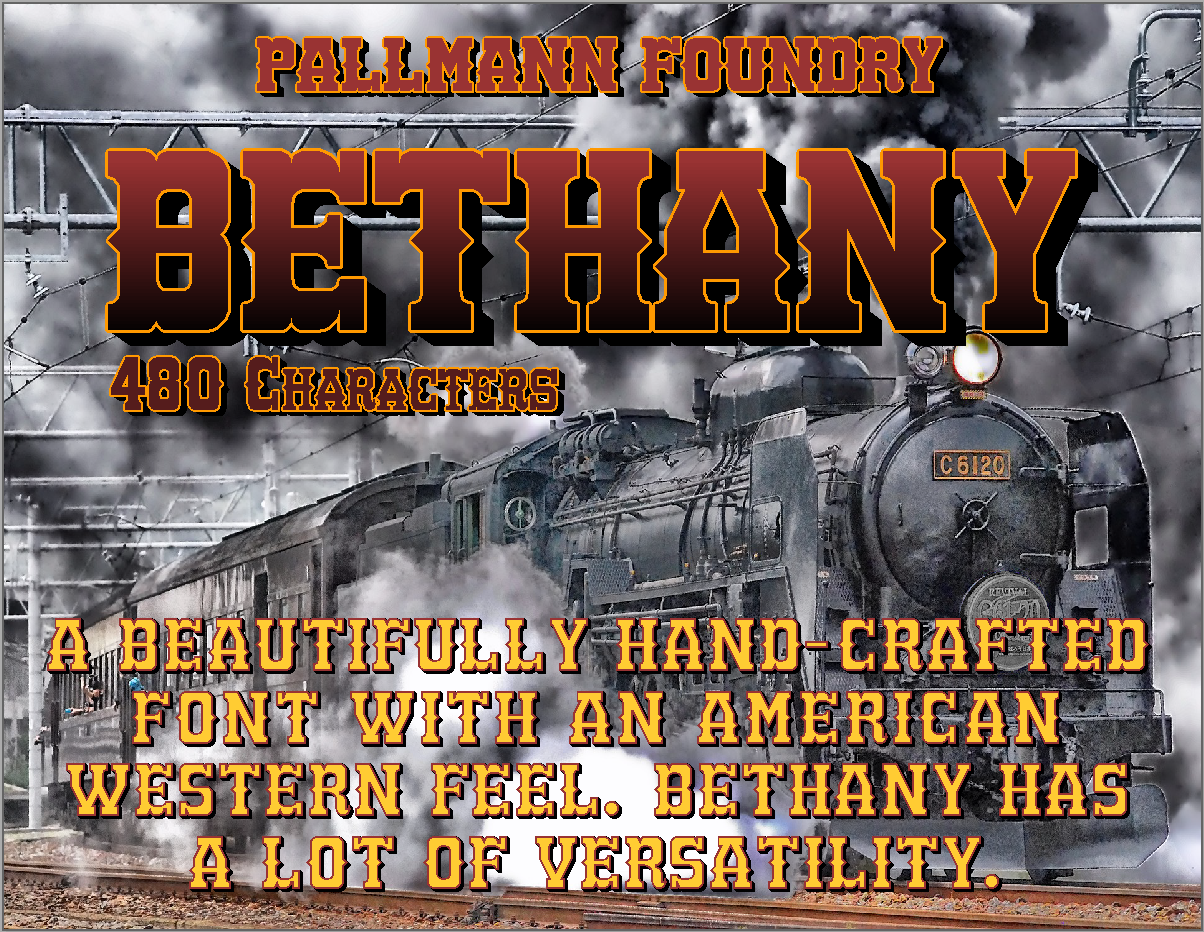
This week's font is Bethany. A beautiful hand-crafted font with an American western fell. Bethany has a lot of versatility.Free for personal use. Get it here: pallmannfoundry.blogspot.com/2…